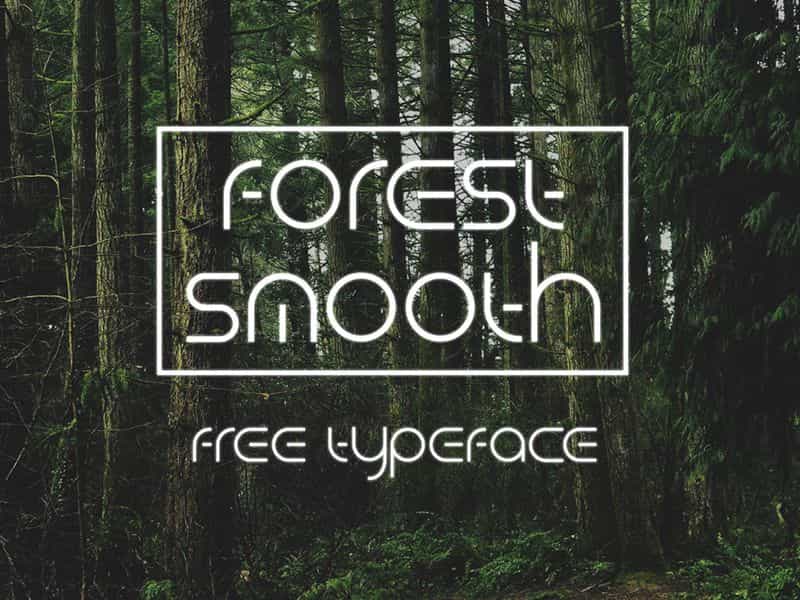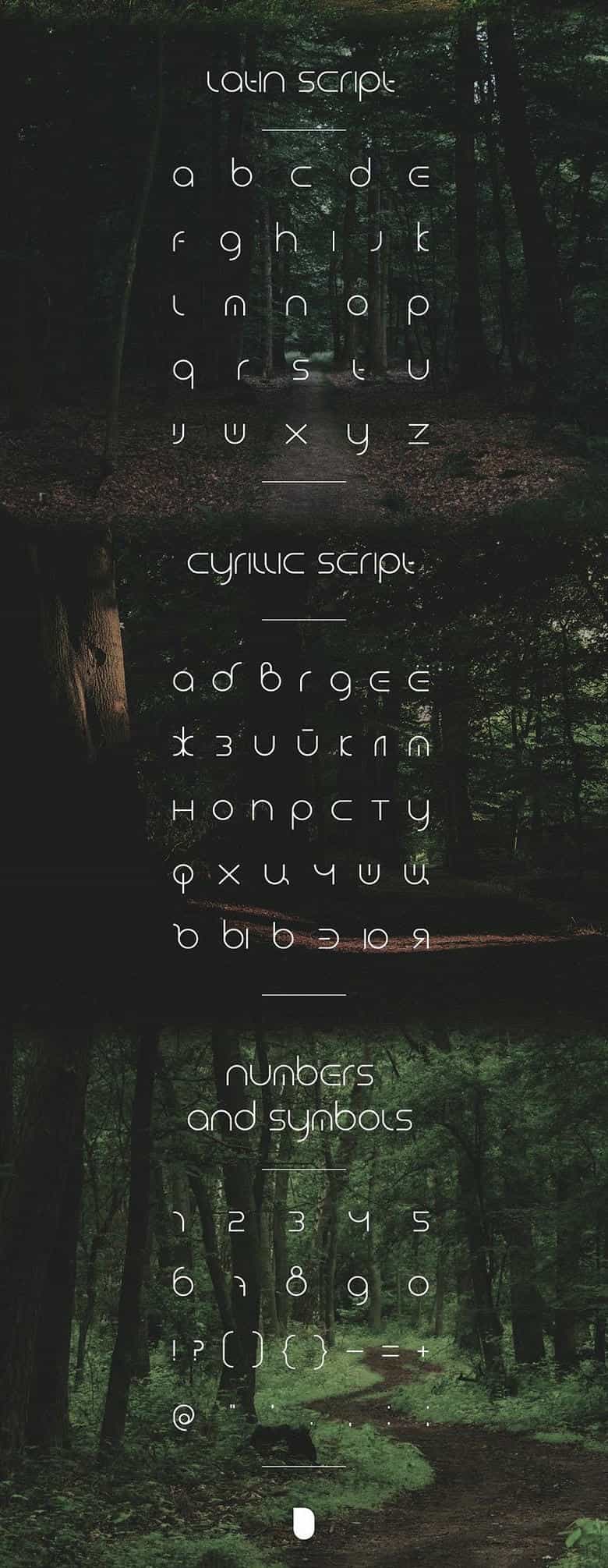
Discover Forest Smooth Typeface, part of the Sans Serif Display Graffiti collection—a versatile and unique font perfect for adding a personal touch to your projects. Download it for free and enjoy crafting designs with style, from invitations to social media posts. This font is available exclusively for personal use, giving you the freedom to create without limits. Unlock your creativity with Forest Smooth Typeface today!
What’up Mondayers! Today is the big day cause you meet with ForestSmooth! Introducing ForestSmooth Font. Light and Elegant Font. It can be used to design a modern masterpiece. A font that can be used for all your needs, from headlines, to invitations, to logos. Sloan is the missing piece to complete any design!